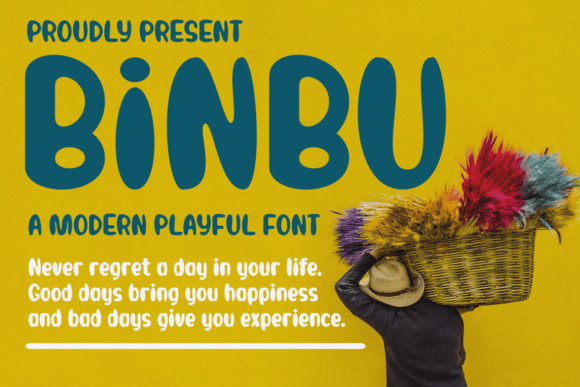
**Introducing Binbu Font: The Playful Display Font That Will Transform Your Designs**
In a world saturated with ordinary fonts, Binbu emerges as a breath of fresh air, a playful display font that breathes life into your designs. Crafted with meticulous attention to detail by the talented maikofarazhatta, Binbu is not just a font; it's an experience, an expression of creativity that will captivate your audience and leave a lasting impression.
**Step into a World of Endless Possibilities**
With Binbu at your fingertips, the possibilities are limitless. Whether you're crafting greeting cards, invitations, posters, baby clothing, book covers, quotes, logos, presentations, or headlines, Binbu seamlessly adapts, adding a touch of whimsy and charm to every project. Its versatility knows no bounds, making it the perfect choice for designers of all levels.
**Immerse Yourself in the Beauty of Every Letterform**
Binbu's meticulously crafted letterforms dance across the page, each character a work of art. The uppercase letters exude confidence and playfulness, while the lowercase letters have a gentle, inviting quality. Together, they create a harmonious balance that draws the eye and captivates the senses.
**Experience the Joy of Seamless Creation**
Available in both OTF and TTF formats, Binbu is a dream to work with. Its smooth curves and clean lines ensure effortless readability, while its wide range of characters, including uppercase and lowercase letters, provides the flexibility you need to bring your creative visions to life.